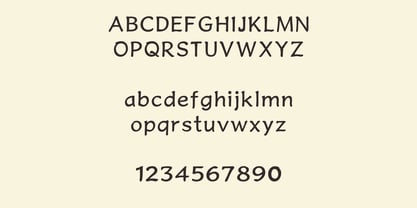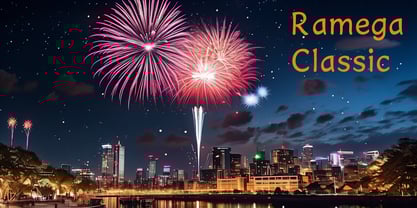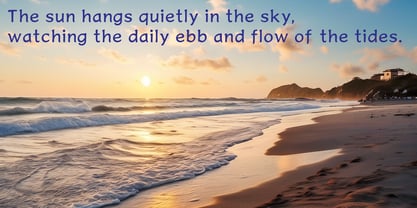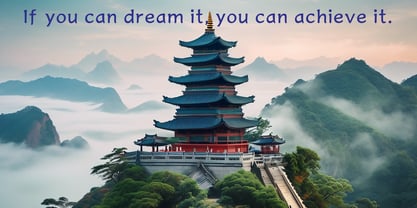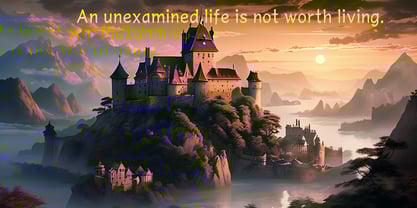
Ramega Classic
by Ramega
The Ramega Classic Font Family was designed by Apollo Zhang and published by Ramega. Ramega Classic contains 1 styles.
Introducing “Ramega Classic,” a newly crafted English typeface that impeccably incorporates timeless artistry within every stroke. This font is known for its well-rounded and full-bodied characters, which contribute to its overall elegant and restrained style.
The essence of Ramega Classic resides in the space where artistry meets typography. Every stroke is a testament to classic aesthetics, resulting in a font that is both visually striking and nostalgically familiar. The strokes, round and full, lend the characters a feel of universality, making them perfect for a wide array of applications.
One of the most impressive aspects of Ramega Classic is its depiction of stability. The confidence and self-assuredness enclosed within its letters present a sense of established poise. Its balanced appearance is consistent, infusing a vibe of steadiness, reliability, and authenticity.
The font excels in presenting a sophisticated elegance with a subtle touch of antiquity, making it ideal for artwork, literature pieces, and any other content that requires a hint of classic refinement. Ramega Classic won't merely deliver words, but it will beautifully paint a multitude of stories, transporting readers to a time and place where art thrives in each letter.
In essence, the "Ramega Classic" is a timeless piece of art, capturing the profound beauty of the written word. It stands as a testimony to the perfect fusion of art and typography, making every written piece an artistic masterpiece. In an era of fleeting trends, Ramega Classic's beauty is a testament to the enduring charm of classic aesthetics.